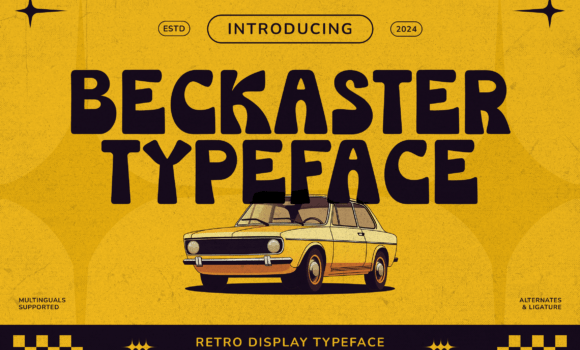
beckaster
Beckaster Font – Free Download Introduction to Beckaster Font Beckaster is a retro display typeface inspired by 70s automotive graphics, vintage posters, and classic roadside signage. 📸 Preview Gallery 6 images 📌 Product Name Beckaster Font 👤 Author TypeFactory 📂